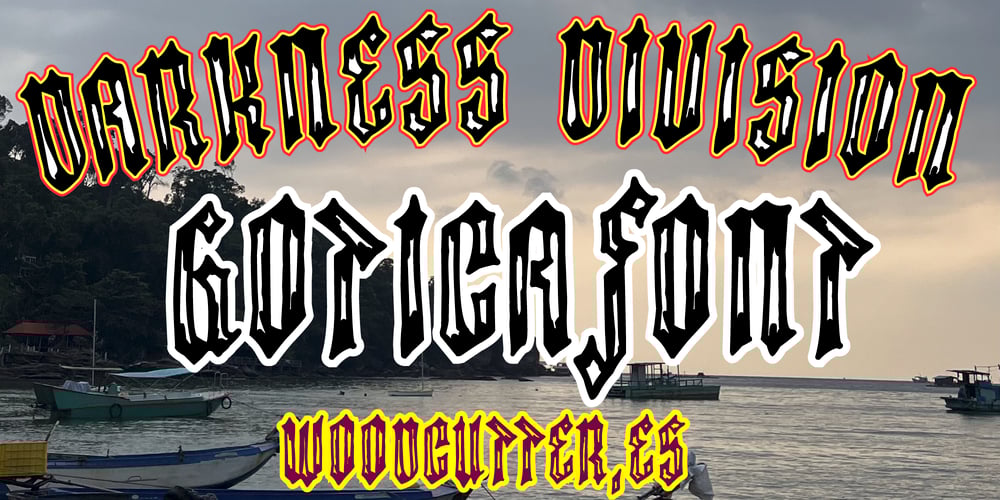
Darkness Division Font Family was designed by Jordi Manero and published by Woodcutter. Darkness Division contains 1 styles and family package options. “Darkness Division” is an uppercase gothic-style font, characterized by narrow, semi-solid letters that convey a dark and mysterious aesthetic. With sharp structure and thin lines, its characters evoke an elegant yet eerie atmosphere. The subtle wear in its strokes gives it a slightly distressed look while retaining the intensity of traditional gothic style. It also includes accents, making it complete and versatile for multilingual projects. Perfect for impactful titles, event posters, and logo design that seek a touch of gothic sophistication and mysticism.